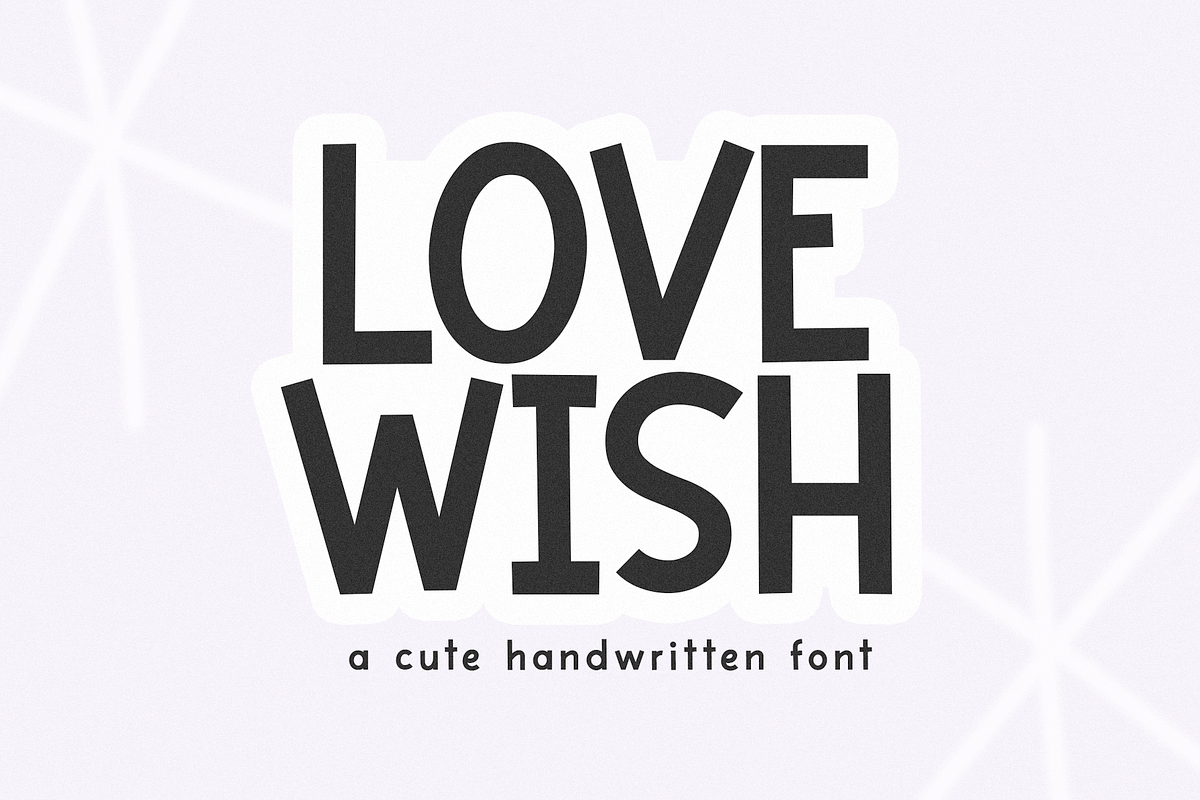
Lovewish Fun Handwritten Font Free Download
Lovewish Fun Handwritten Font Free Download is a sweet and playful typeface that brings joy, warmth, and a personal touch to every design. With its bouncy curves and casual strokes, Lovewish is perfect for greeting cards, quotes, planner pages, kids' projects, social media graphics, and brand identities that need a friendly, approachable vibe.
This font feels like a handwritten note full of love and creativity—its whimsical style makes it ideal for both personal and professional use. Whether you're designing for a small business or crafting something heartfelt just for fun, Lovewish delivers charm and character in every letter.
Easy to read and full of personality, it’s a great addition to any designer’s font library.